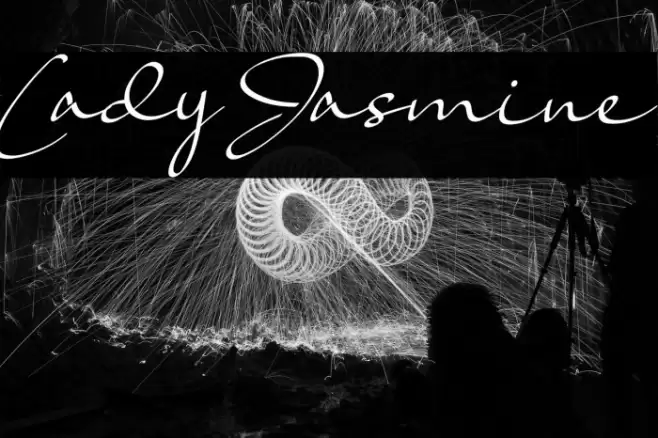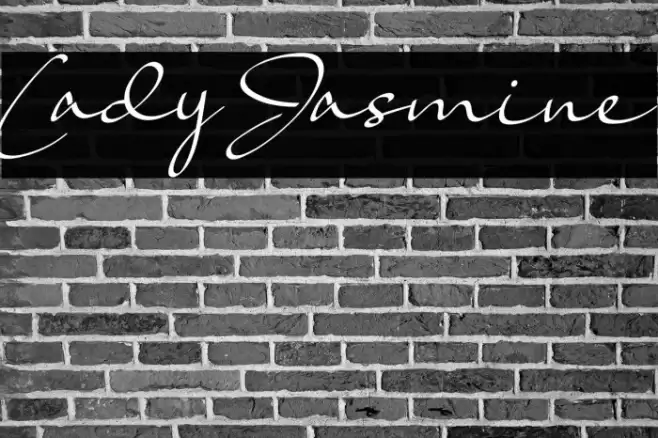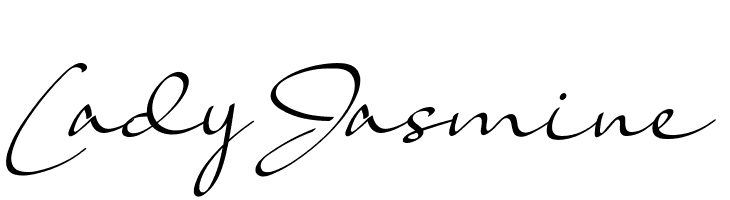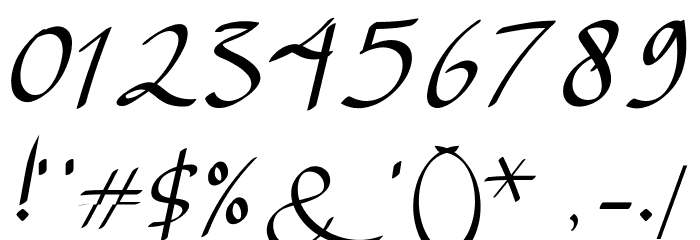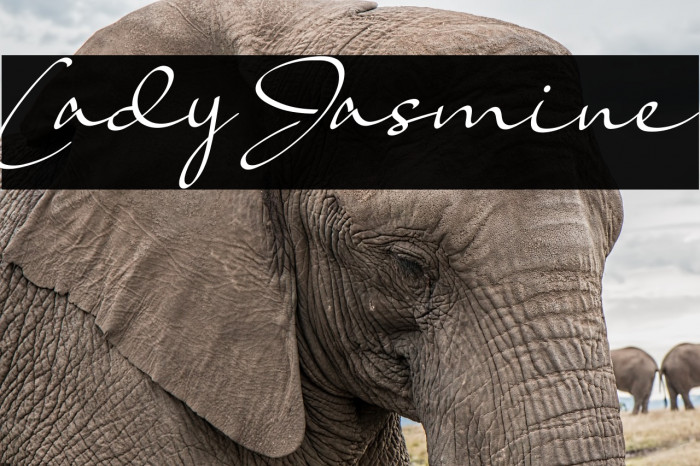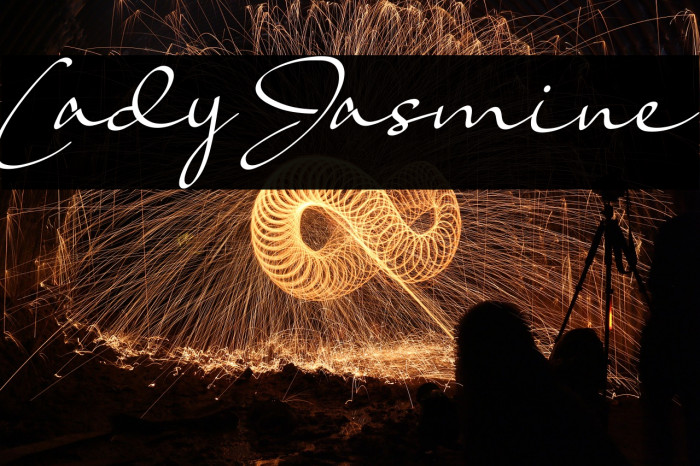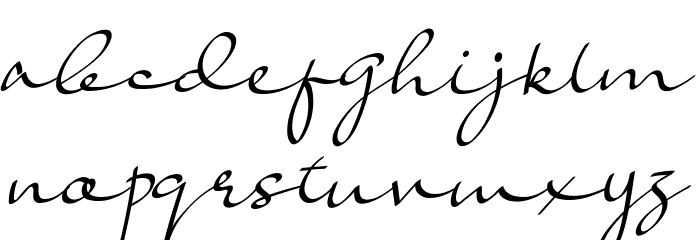
Lady Jasmine Font
Lady Jasmine Description
This elegant script font features a flowing, cursive style that exudes sophistication and grace. The uppercase letters are characterized by sweeping curves and delicate loops, while the lowercase letters maintain a consistent fluidity that enhances readability. The numerals are designed with a similar flair, ensuring a cohesive look across all characters. Special characters are thoughtfully integrated, maintaining the font's overall aesthetic. The strokes vary in thickness, providing a subtle contrast that adds to the font's charm without compromising its legibility. Ideal for projects that require a touch of elegance and personalization.
A graceful and sophisticated script font with flowing cursive characters from Uncategorized fonts.
- Proposed Projects: Wedding invitations, elegant branding, personal stationery, and upscale packaging.
- Overall Style: Elegant
- Use Case: Logos, Invitations, Personal stationery